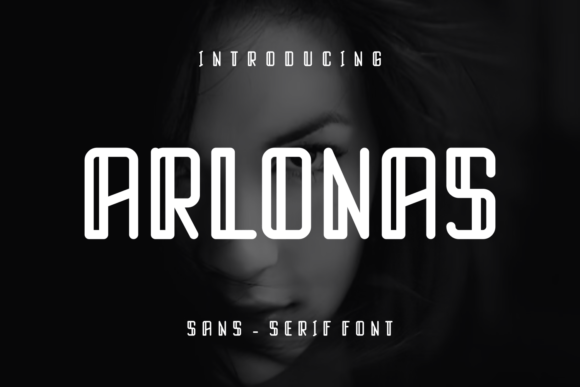
The Designer’s Delight: Arlonas Font
I’ll never forget the time I was working on a project for a client who wanted a bold, eye-catching font to make their brand stand out. I scoured the internet, tried countless fonts, but nothing seemed quite right. That was until I stumbled upon Arlonas Font. Its unique style and timeless charm instantly captivated me, and I knew I had found the perfect fit. In this article, I’ll share my love for Arlonas Font, its features, and how to make the most of it in your designs.
Arlonas Font: A Personal Review
- ✨ Incredibly distinct and timeless style
- ✅ Highly legible, even at large sizes
- 💥 Perfect for creating spectacular designs that demand attention
- 🎨 Versatile and works well for various design projects, from posters to logos
While Arlonas Font is an excellent choice, there are a few things to keep in mind:
- ⚠️ Some characters may not work well at very small sizes (< 10pt)
- 🤔 Limited support for non-English languages
- Experiment with OpenType features, such as stylistic alternates, to add visual interest
The Story Behind Arlonas Font
Arlonas Font was designed with the intention of creating a unique, attention-grabbing font that would stand the test of time. Inspired by classic typography and modern design trends, Arlonas Font’s creator aimed to craft a font that would be both elegant and bold. The result is a font that is both versatile and eye-catching.
| Font Name | Arlonas Font |
| What type of designs is Arlonas Font best suited for? | Arlonas Font is perfect for creating spectacular designs, such as posters, logos, and titles, that demand attention. |
| Is Arlonas Font suitable for body text? | While Arlonas Font is highly legible, it’s best used as a display font. For body text, consider a more traditional font. |
| Are there any language limitations with Arlonas Font? | Arlonas Font has limited support for non-English languages. |